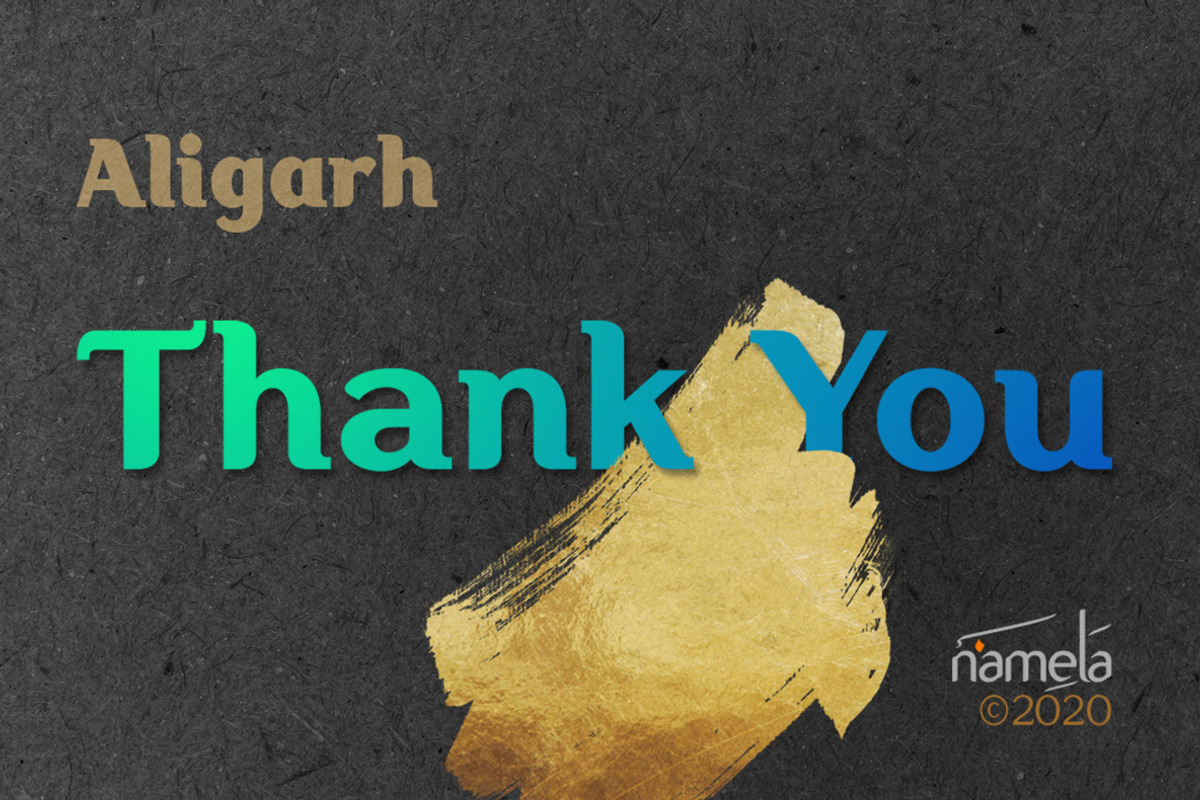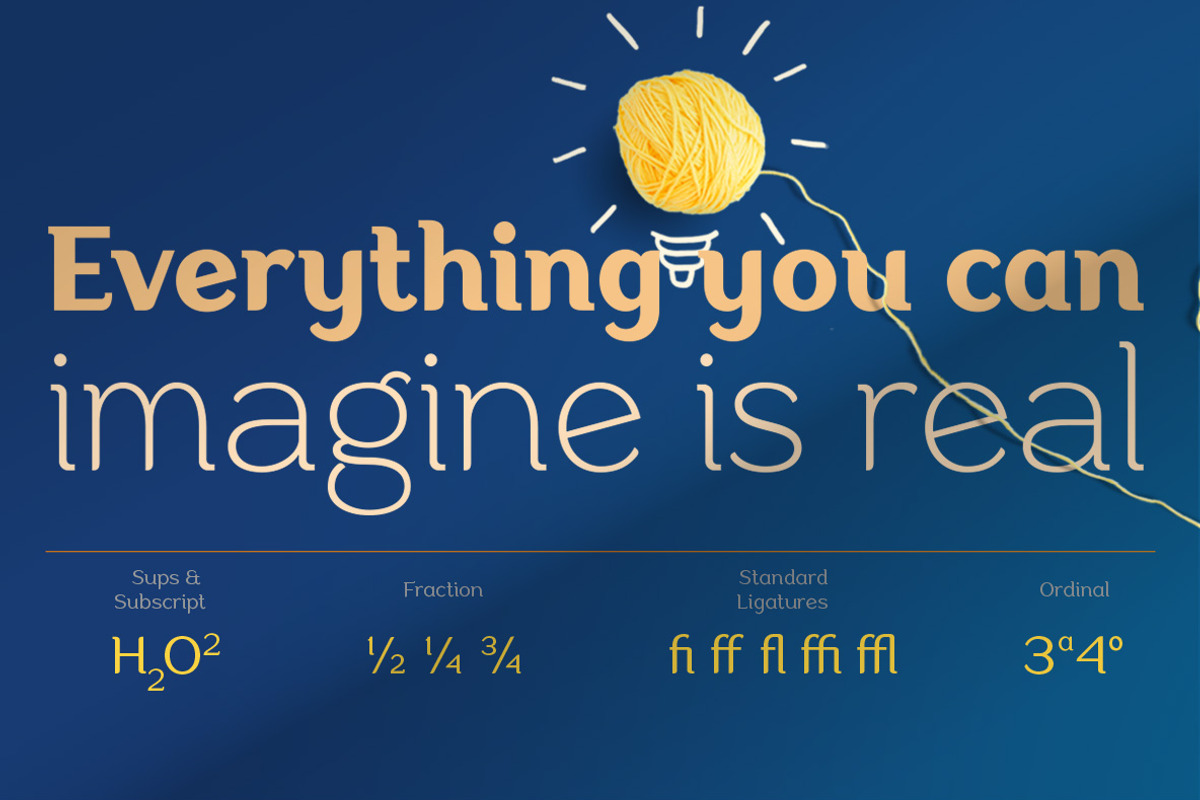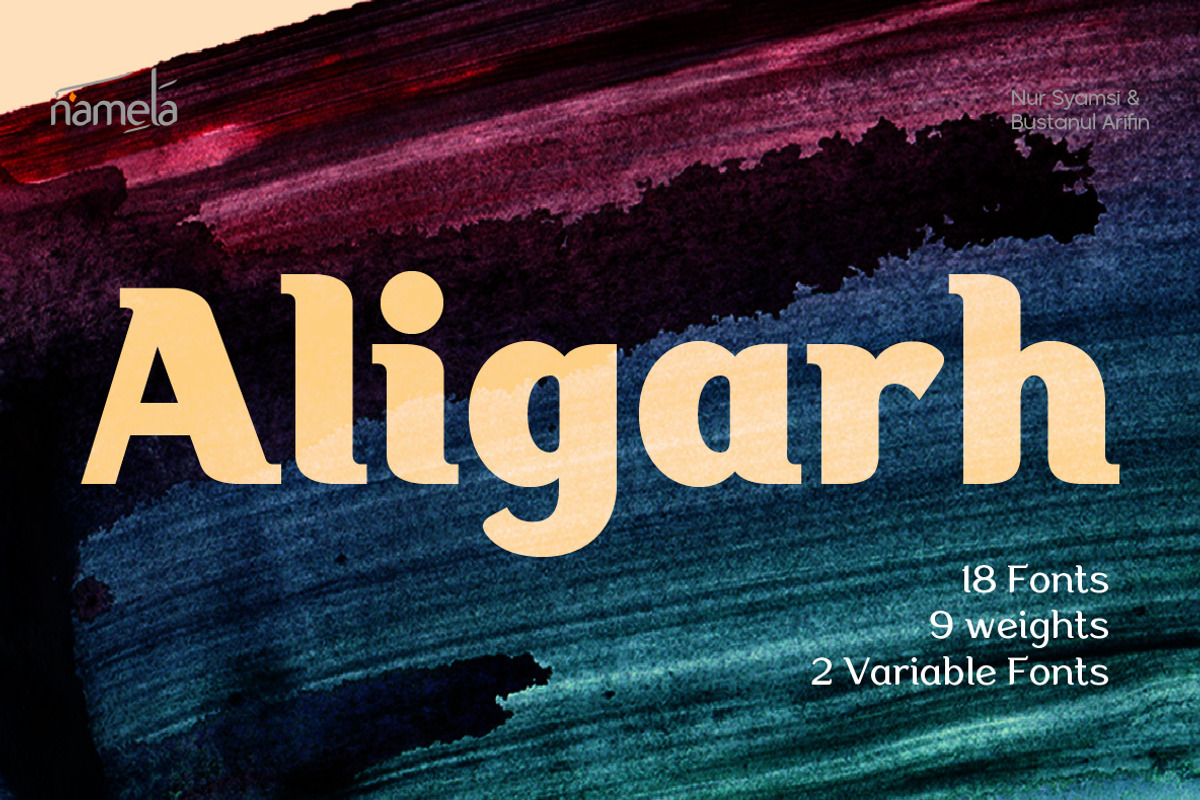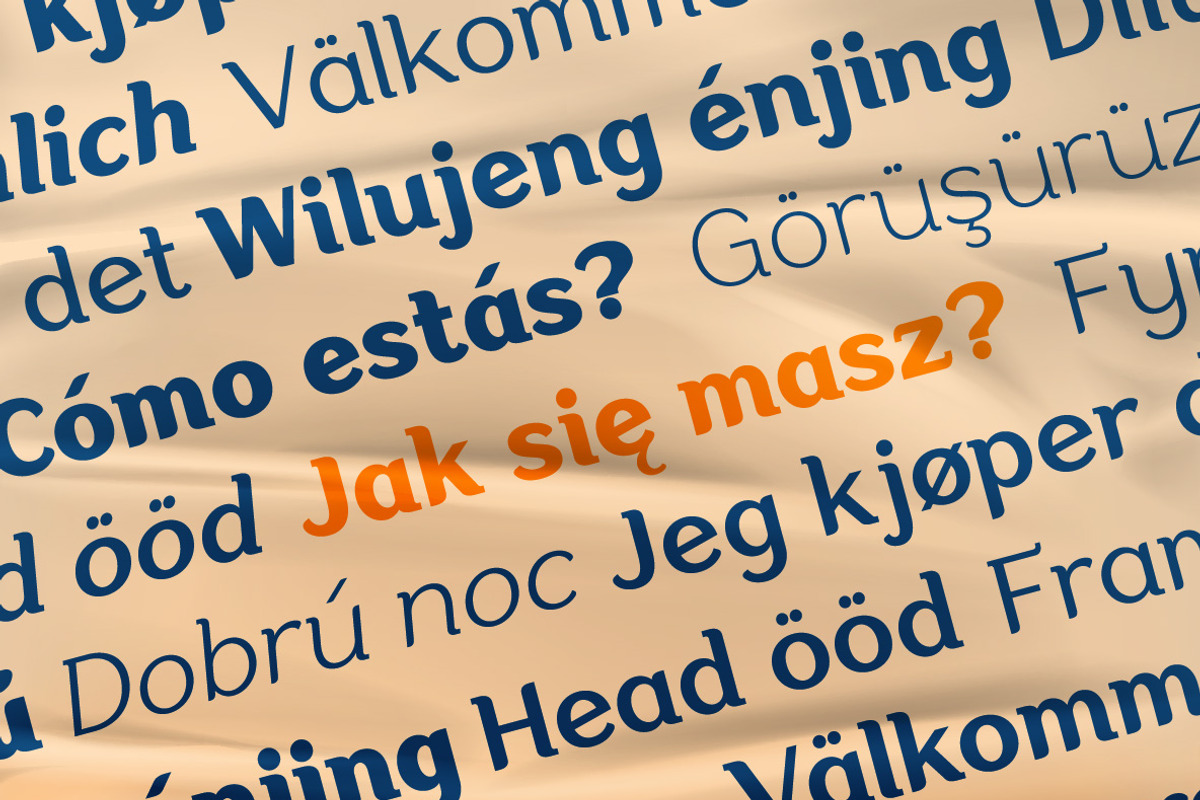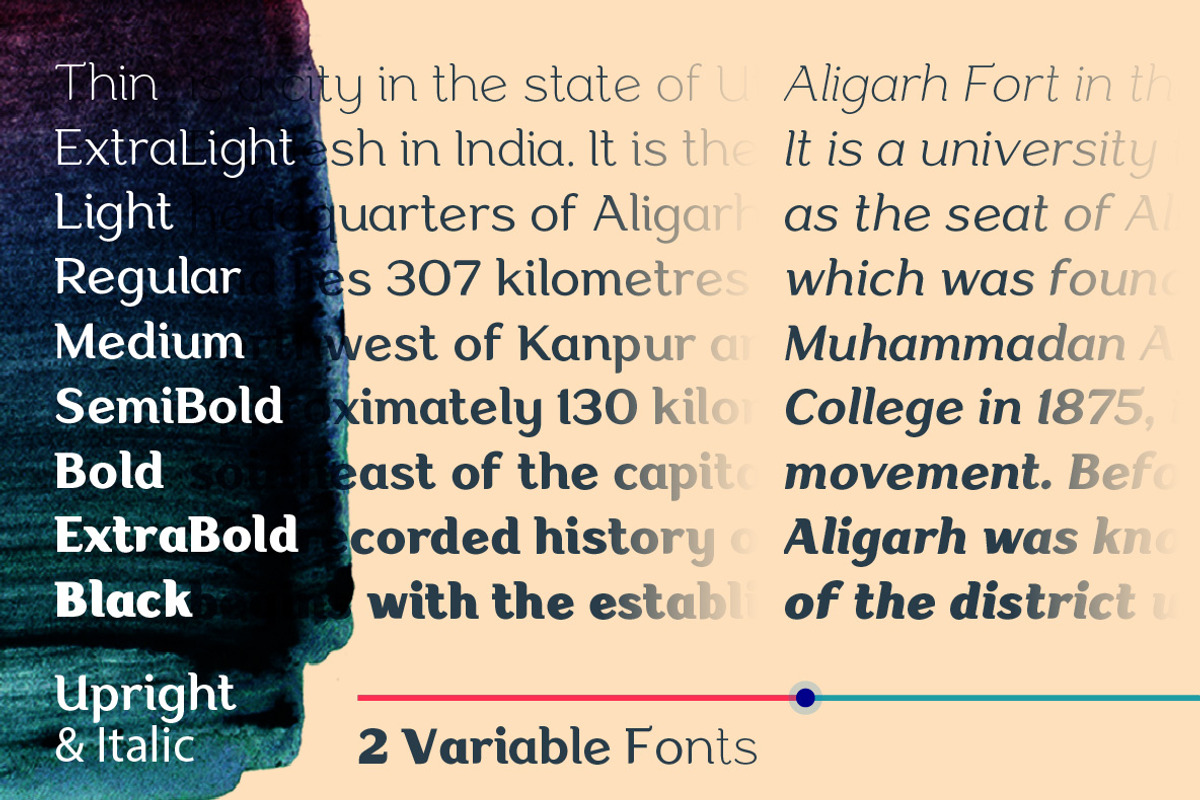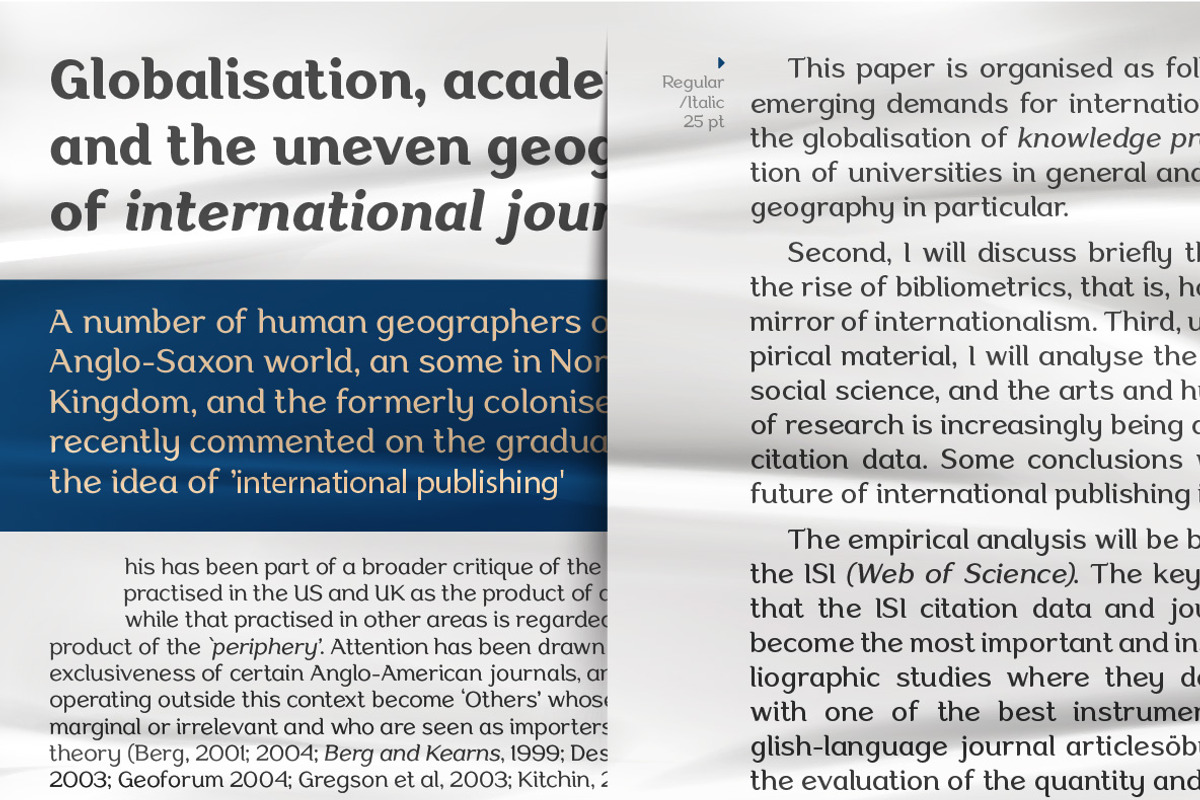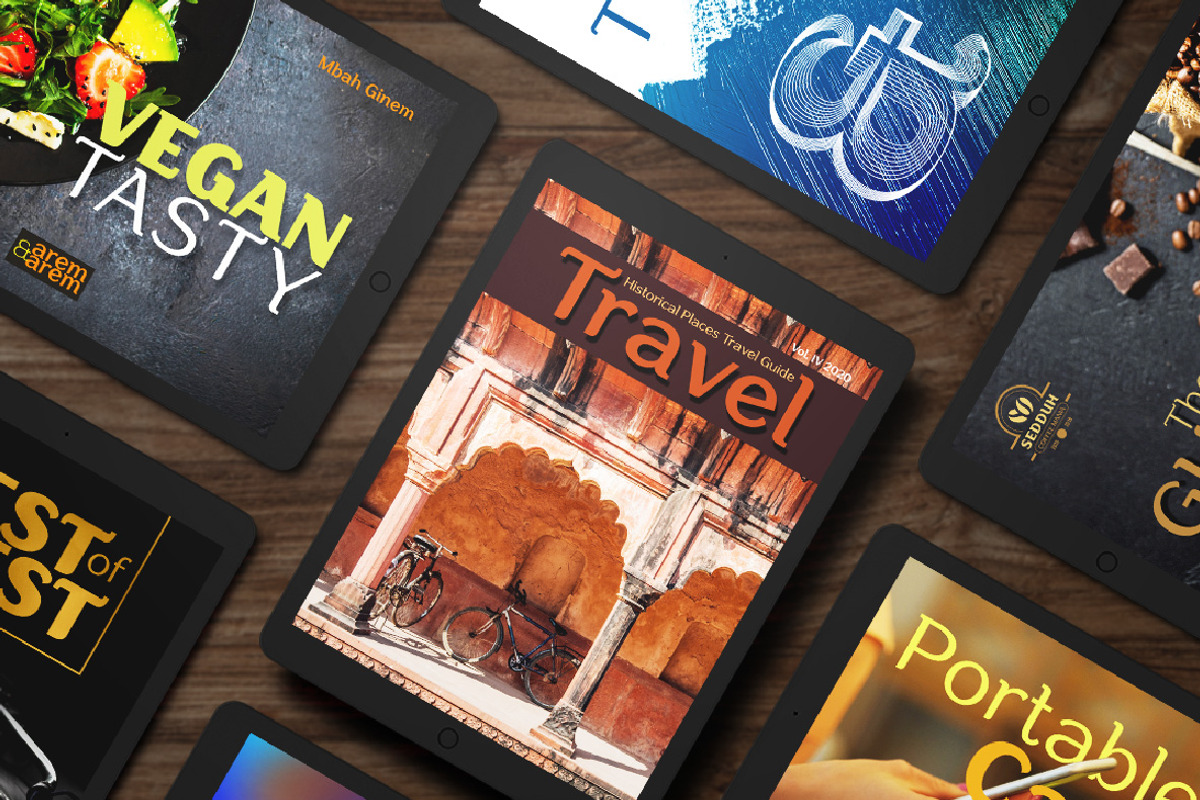
Aligarh - Stylish Slab Font Family
Aligarh font is a true testament to the artistry of typography. Its slab serif design incorporates smooth rounded brackets, where each edge culminates in distinctive shapes. Representing a bold exploration of style within typefaces. This font is a versatile masterpiece, ideal for both print and digital media, enhancing the visual impact of your projects.
With a staggering 18 fonts derived from 9 meticulously crafted sizes. Aligarh Unique slab font offers an extensive range of choices for your creative endeavors. Its compatibility with OpenType features, from ligatures to alternates.